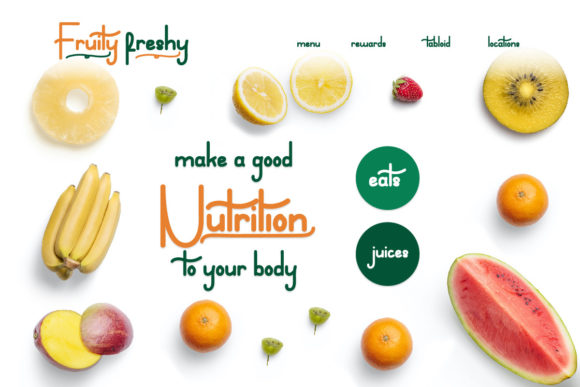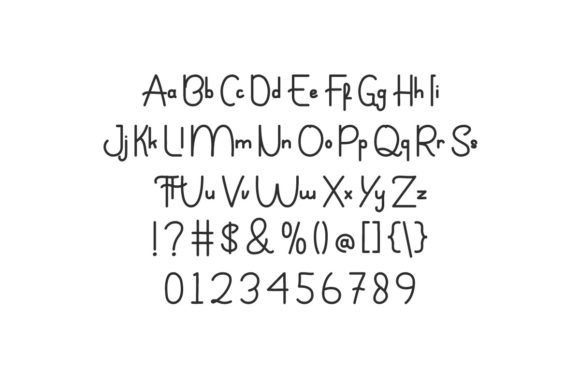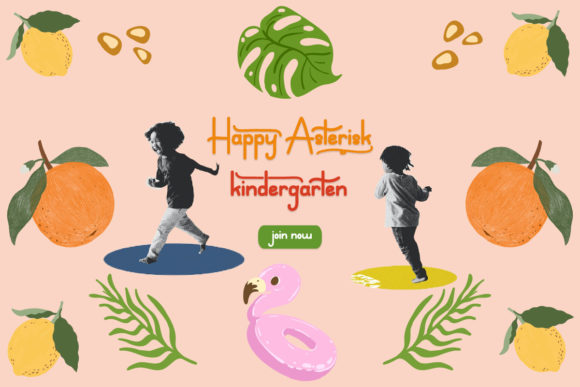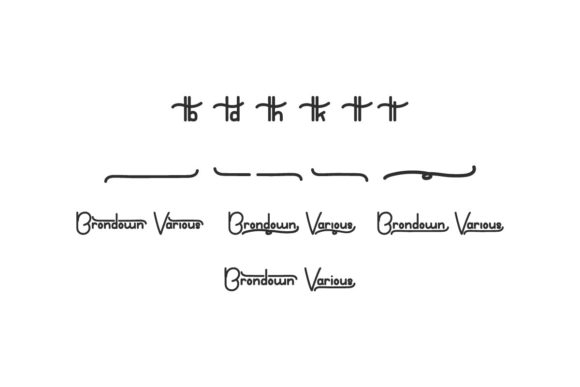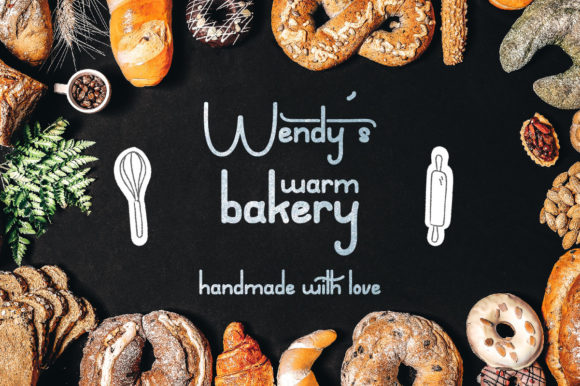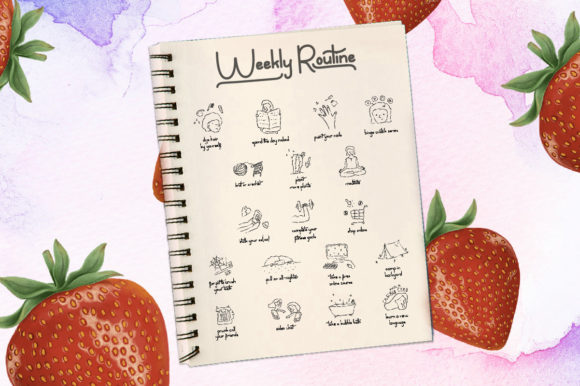
The Perfect Script Font for Your Next Creative Project
Have you ever sat at your desk, staring at a blank sheet of paper, waiting for inspiration to strike? For designers, this moment is all too familiar. It’s the moment when a great idea is just out of reach, but with the right tools, it can become a reality. That’s where the Brondown Various Font comes in – a delicate and fashionable script font that’s perfect for branding projects, from logos to t-shirt printing.
This versatile font is more than just a pretty face; it’s a valuable tool for designers who want to make a statement. With its elegant design and wide range of applications, the Brondown Various Font is an essential addition to any design library. Whether you’re working on a creative product or a logo, this font is sure to elevate your design and make it stand out from the crowd.
Brondown Various Font Key Features
- Font Family: Brondown Various Font is a multi-style font family with 4 different styles, including Regular, Italic, Bold, and Bold Italic.
- Unique Characteristics: Brondown Various Font features a unique blend of modern and vintage elements, with a focus on clean lines, geometric shapes, and subtle textures.
- Language Support: The font family supports a wide range of languages, including Latin, Cyrillic, and Greek alphabets, making it suitable for global design applications.
Brondown Various Font Review
Overall, I think the Brondown Various Font has some great qualities, but it’s not without its limitations. ✨ One of the things that really stands out to me is the wide range of styles it offers – from casual to formal, and everything in between. The font is also highly customizable, which is a major plus for designers who like to get creative with their typography.
Here are some of the things I love about the Brondown Various Font:
- ✨ Highly customizable: As I mentioned earlier, this font offers a ton of options for tweaking the look and feel to suit your needs.
- ✨ Wide range of styles: From modern to traditional, the Brondown Various Font has a style to suit every project.
- ✨ Easy to read: Even in smaller sizes, the font remains easy to read and understand.
- ⚠️ Limited support for older browsers: While the font looks great in modern browsers, it may not display as intended in older browsers.
- ⚠️ Some styles may be too similar: While the wide range of styles is a major plus, some of the styles may be too similar to each other, making it difficult to choose the right one.
Overall, I think the Brondown Various Font is a solid choice for designers who need a versatile and customizable font. While it’s not perfect, it’s definitely worth considering for your next project.
Brondown Various Font is ideal for creative projects, such as:
- Graphic design
- Typography projects